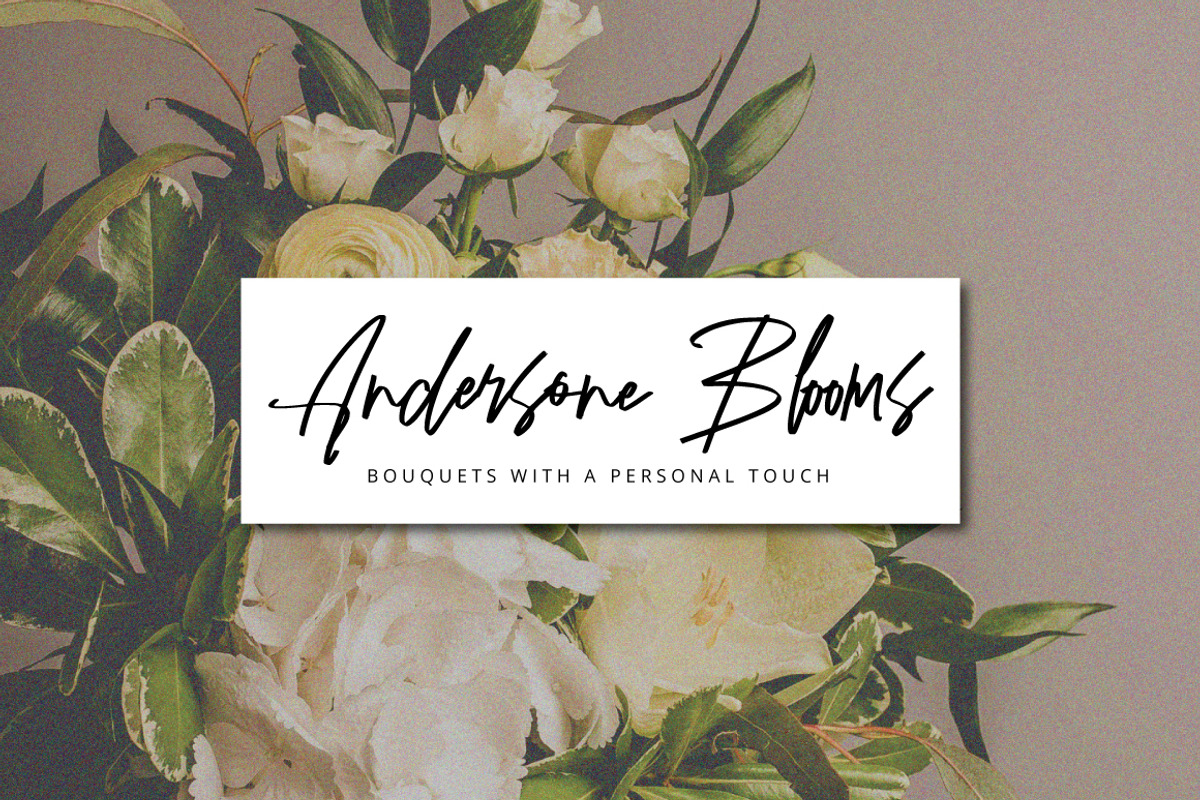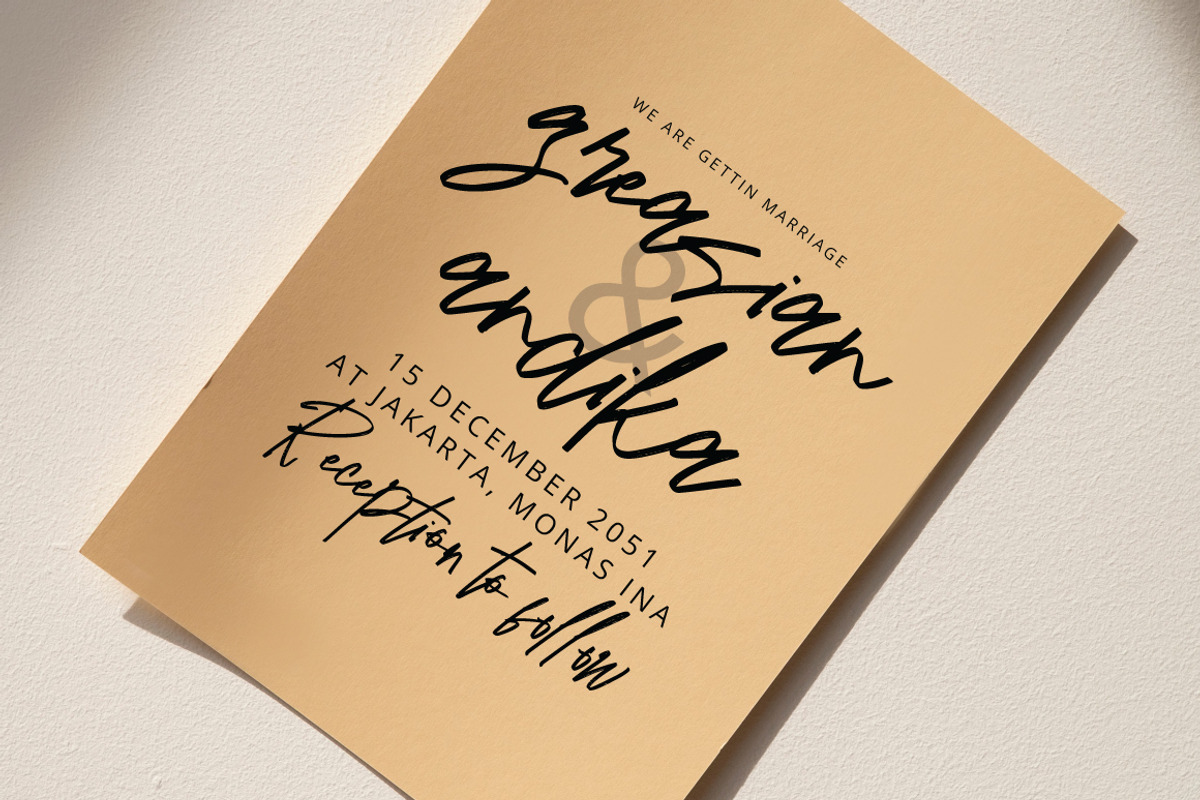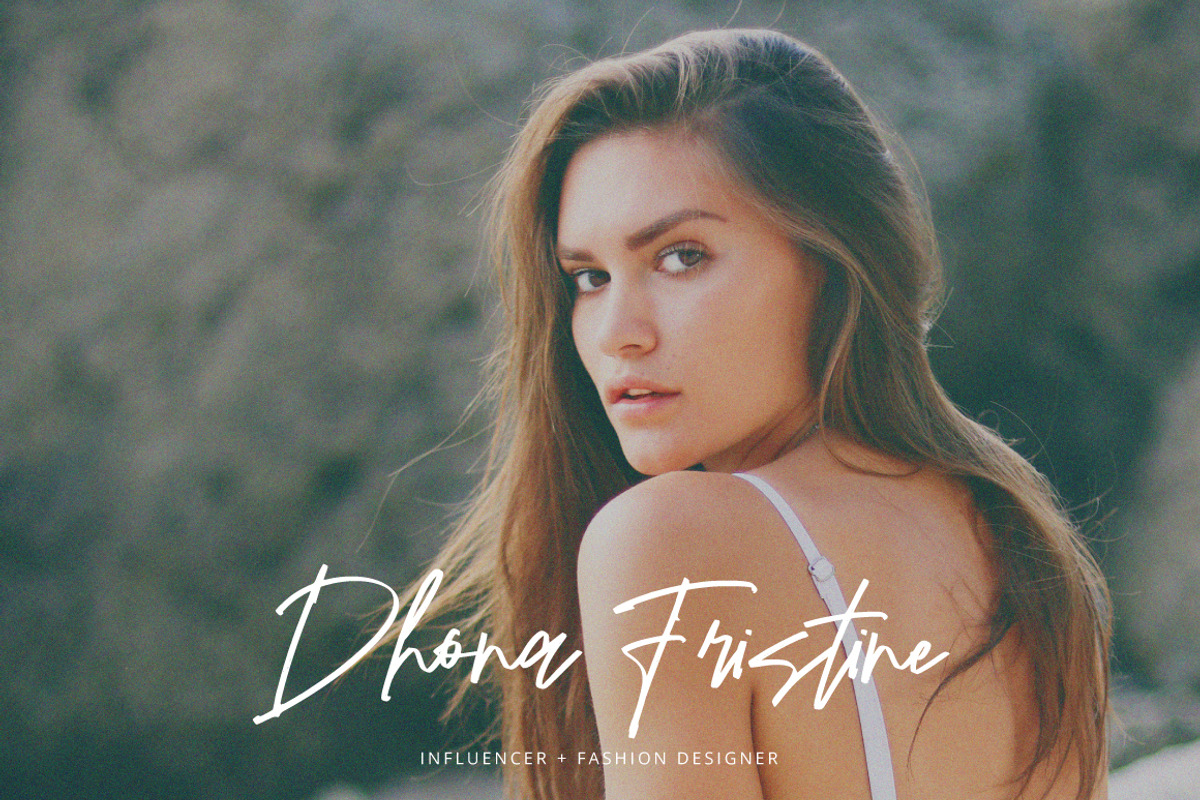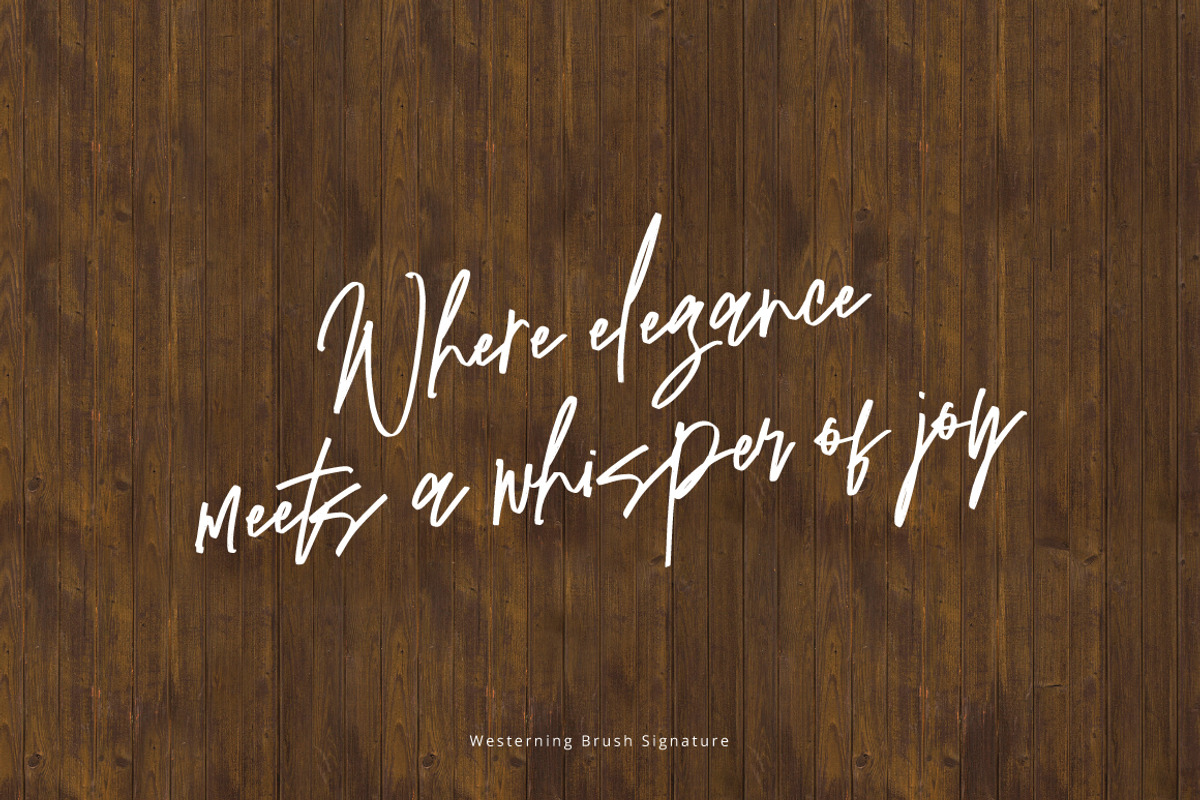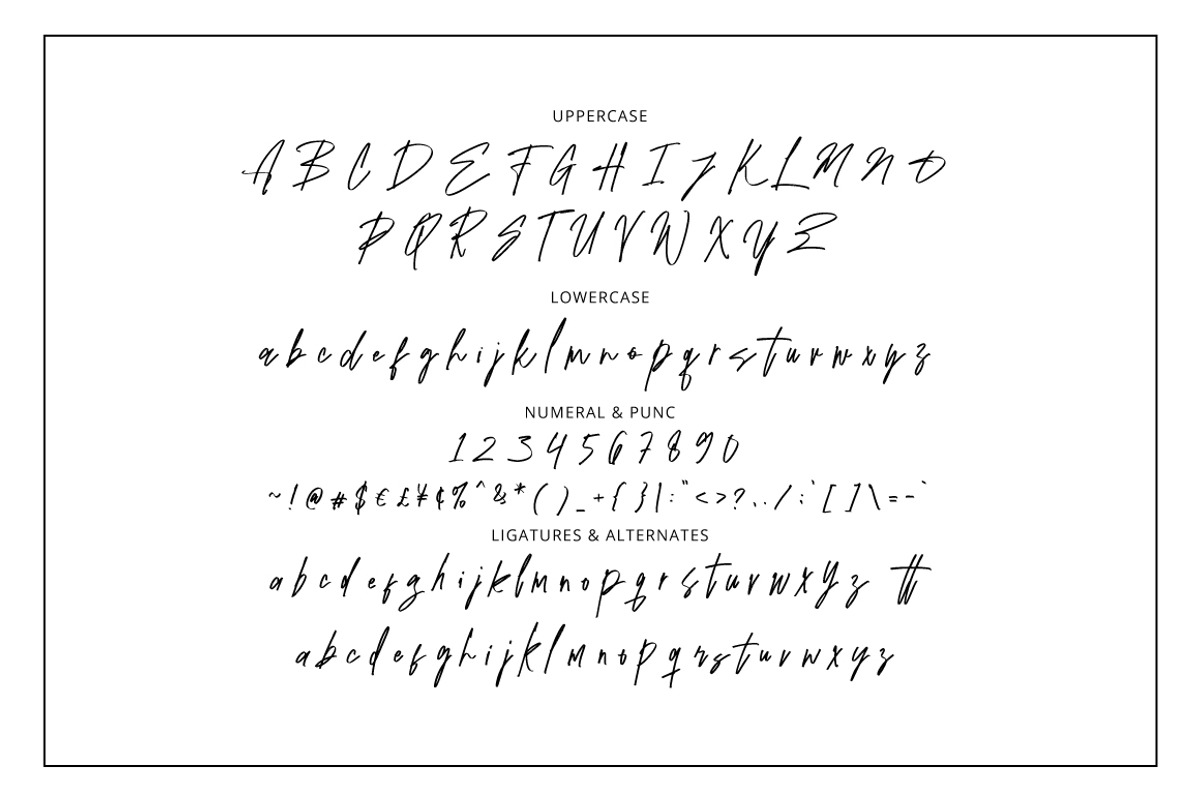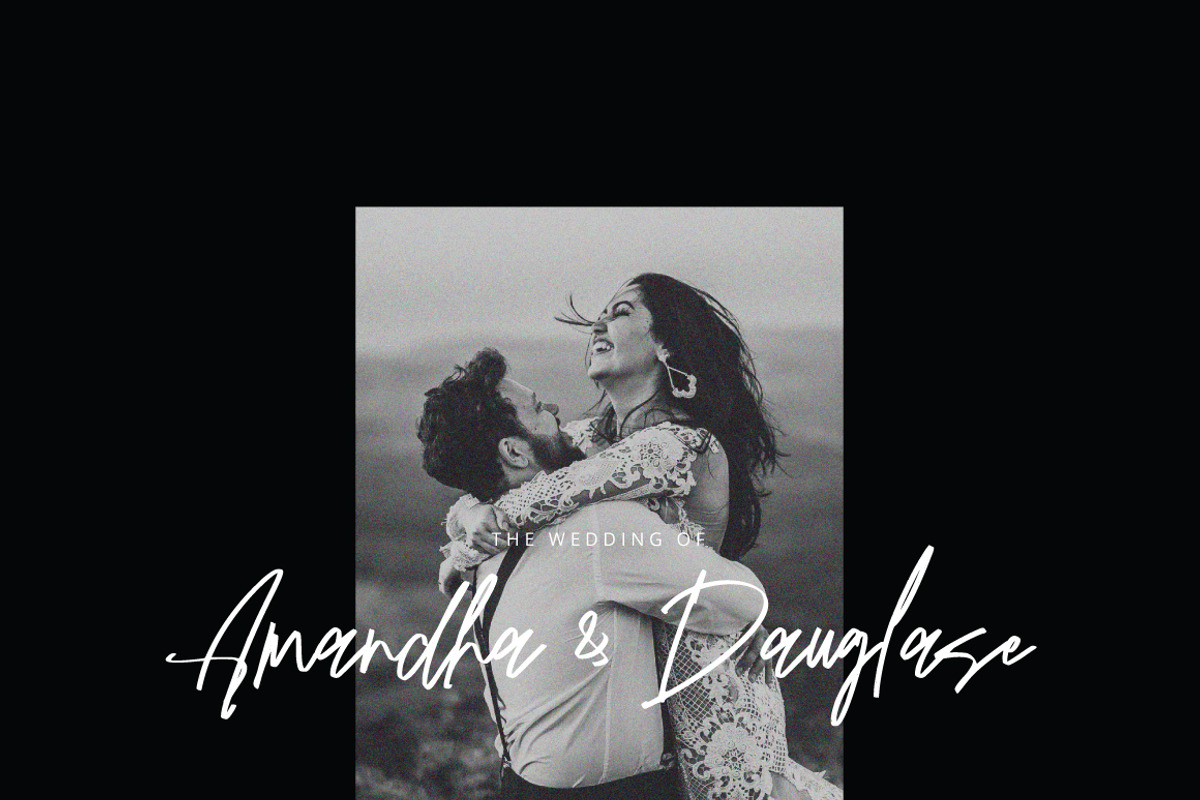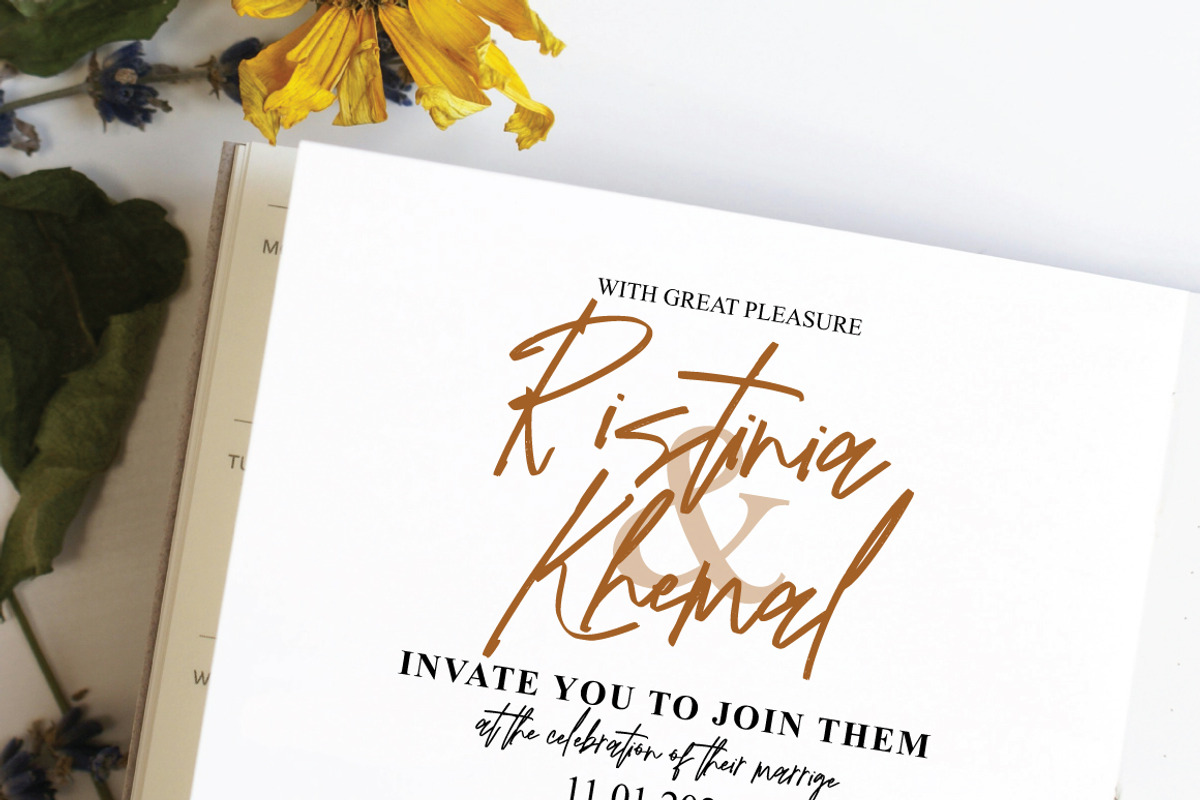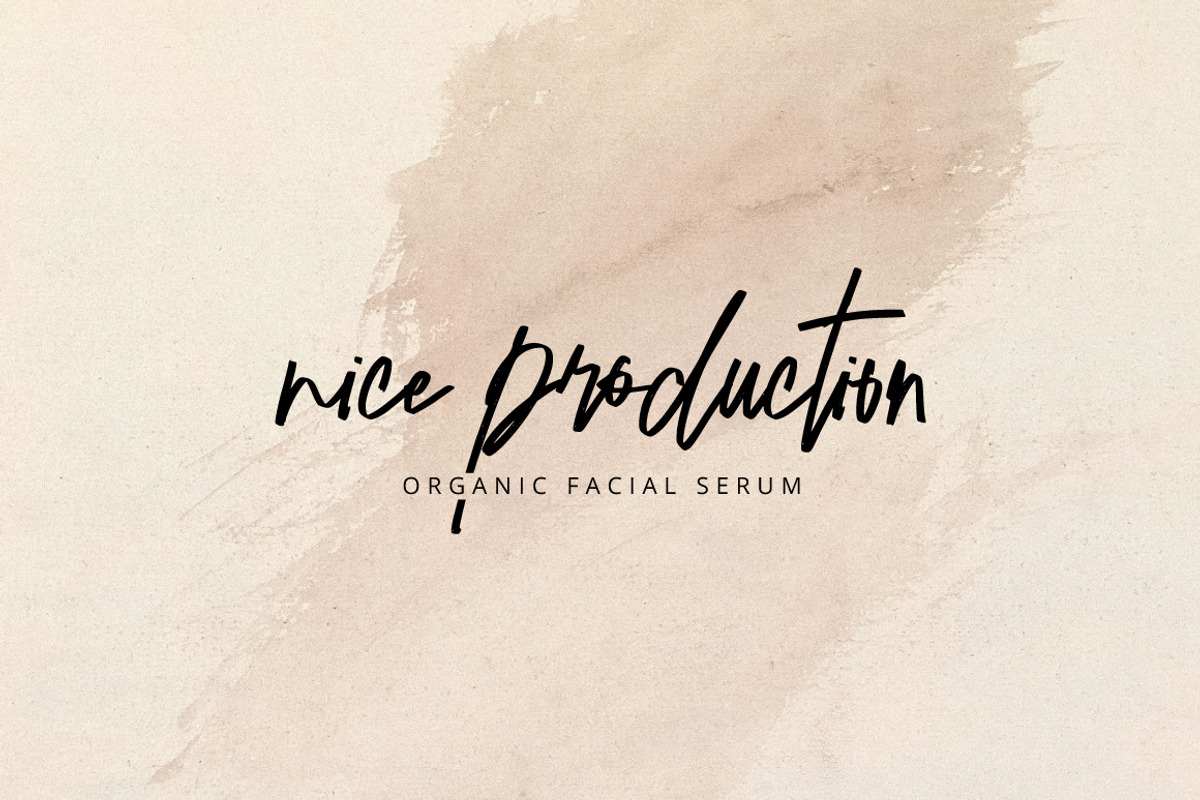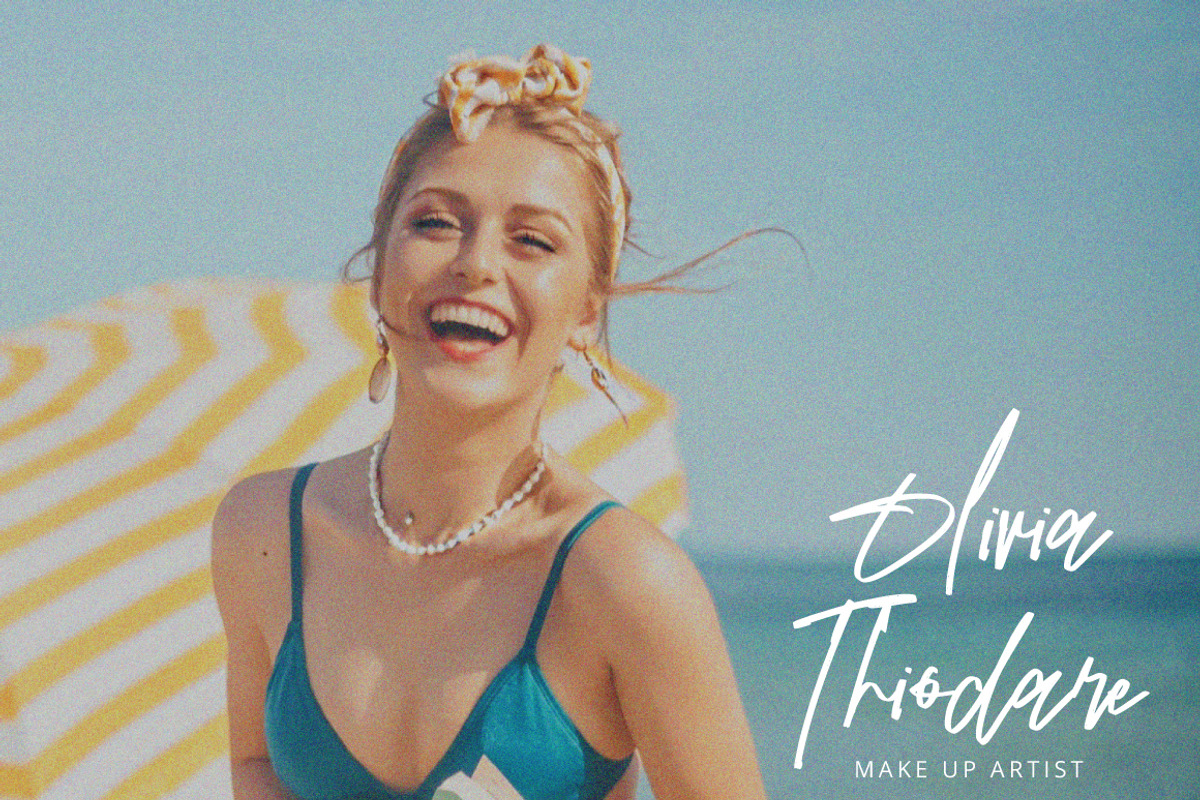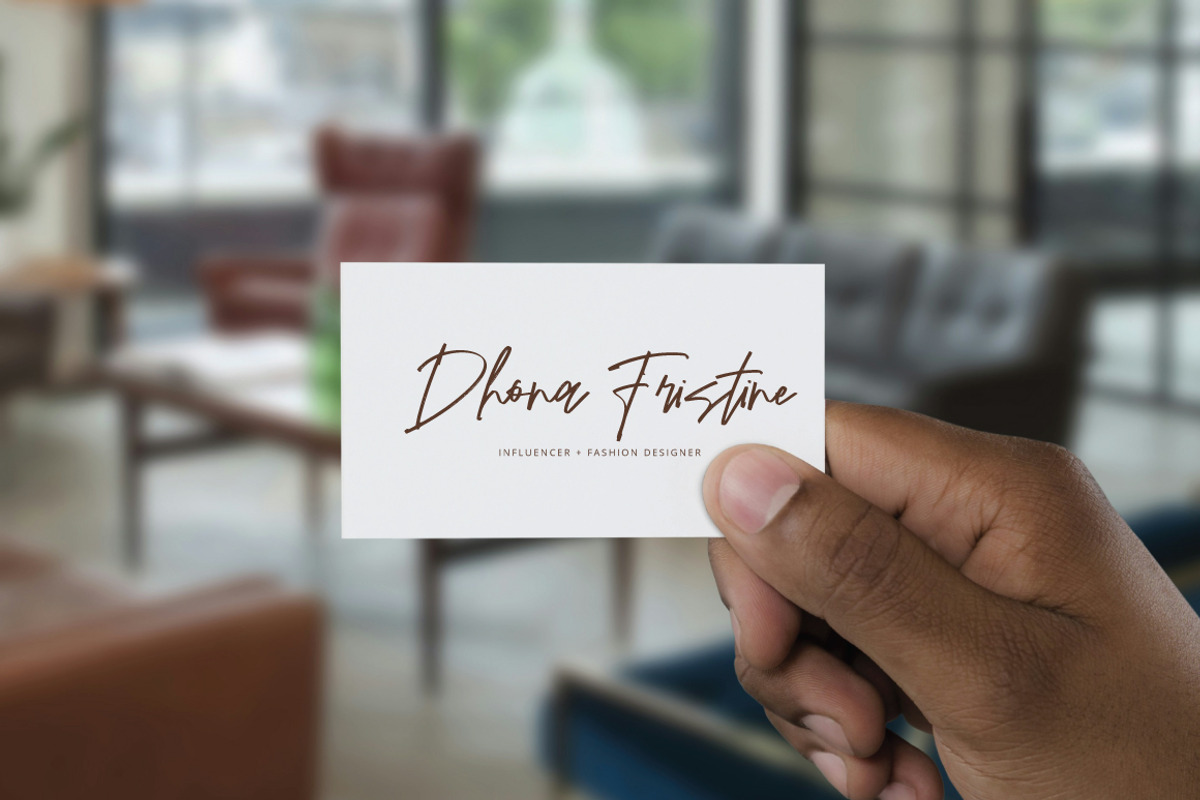
Westerning - Brush Signature
Westerning – Modern Authentic Signature Font
Capture effortless elegance with Westerning, a modern signature script designed to emulate expressive, natural handwriting. Featuring organic strokes, subtle dry-brush textures, and graceful connections, this typeface offers an authentic personal touch that elevates any design layout.
Westerning is ideal for luxury branding, editorial layouts, wedding stationery, floral packaging, quote posters, and photography watermarks. Its fluid rhythm brings warmth and high-end sophistication to modern visual identities.
Westerning Brush Signature Features :
Suitable for:
Logos & Personal Branding
Beauty Branding
Wedding Invitations
Social Media Content
Photography Watermarks
Quotes & Editorial Design
Product Labels & Luxury Branding
Westerning Brush Signature was created for designers, business owners, and creators who want to create a classy and memorable visual identity.